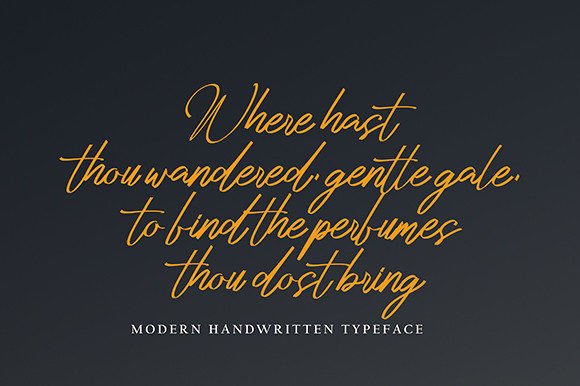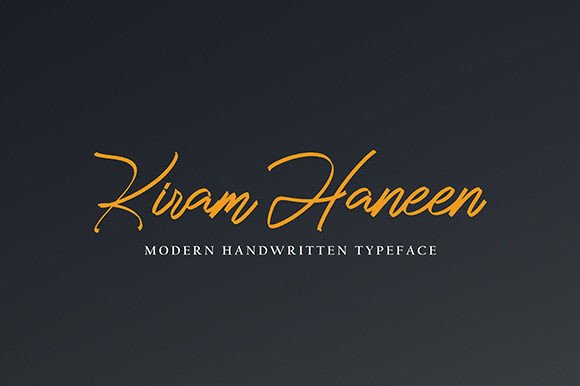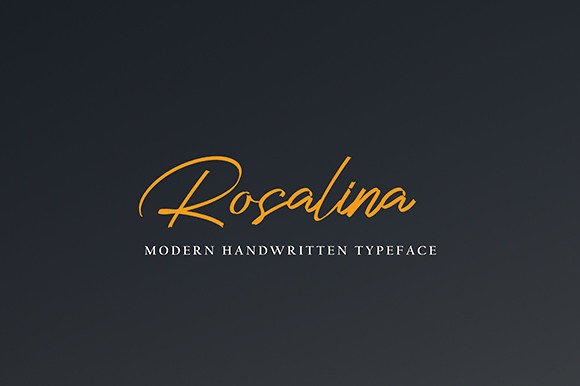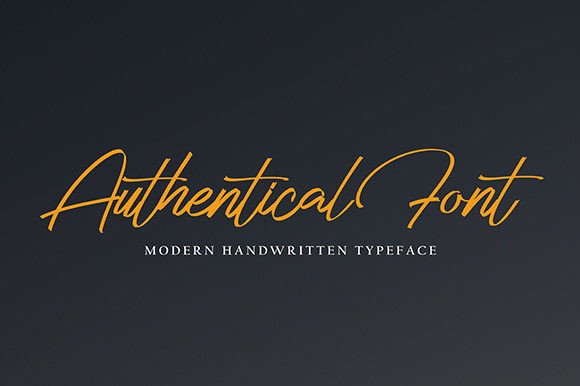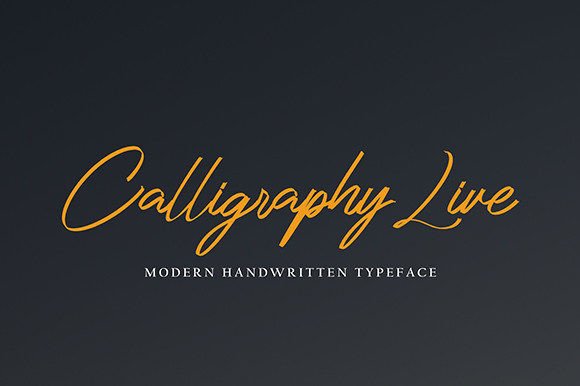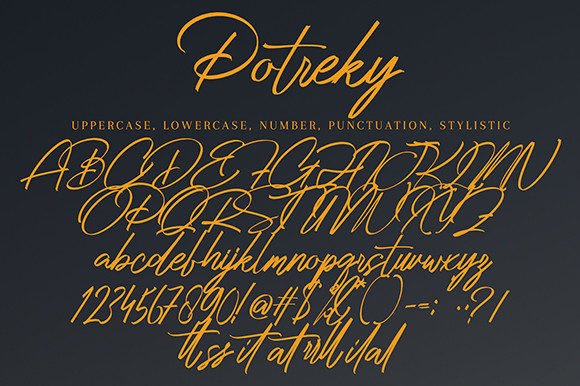
Introduction to Potreky Font
Have you ever stumbled upon the perfect font while working on a creative project, only to find yourself obsessing over its every detail? That’s exactly what happened to me when I discovered the stunning Potreky Font. Its elegant script style and flowing letters are a breath of fresh air in the world of typography.
As a designer, I know how crucial it is to have a high-quality design resource like Potreky Font in your arsenal. Whether you’re working on a wedding invitation, branding materials, or editorial design, this font is sure to elevate your project to the next level. With its unique and refined style, Potreky Font adds a touch of luxury and sophistication that’s hard to find elsewhere.
Key Features of Potreky Font
- High-quality design resource for creative projects: Potreky Font is a unique and stylish font that can elevate any design.
- Resolution: The font is designed to be high-resolution, making it perfect for printing and digital use.
- Unique characteristics: Potreky Font features a distinctive and modern design, making it a great addition to any creative project.
Honest Review: Potreky Font
I recently stumbled upon the Potreky Font, and I must say it’s a great addition to my design arsenal. ✨ The high-quality design and versatility make it perfect for a wide range of creative projects, from logo design to social media graphics.
One of the standout features of the Potreky Font is its transparent background, which allows for seamless integration with any design. This is especially useful for designers who want to create visually appealing graphics without the hassle of complicated backgrounds.
- High-quality design suitable for various creative projects
However, I did encounter some limitations with the Potreky Font. ⚠️ The font selection is relatively limited, and I found myself wishing for more options to choose from. Additionally, the font’s design may not be suitable for all types of projects, particularly those requiring a more formal or professional tone.
Overall, I’m impressed with the Potreky Font, and I would definitely recommend it to designers looking for a high-quality design resource for their creative projects. Just be aware of its limitations, and you’ll be golden.
To get the most out of Potreky Font, experiment with different font sizes, colors, and combinations to find the perfect look for your creative project. You can also use it in conjunction with other design elements to create a unique and eye-catching design.
Common Use Cases for Potreky Font
Potreky Font is perfect for use in a variety of creative projects, including logos, graphics, posters, and more. Its high quality and transparent background make it an ideal choice for designers and artists looking to add a professional touch to their work.
Q: What is the quality of the Potreky Font?